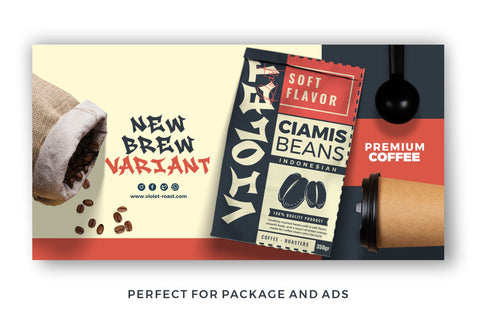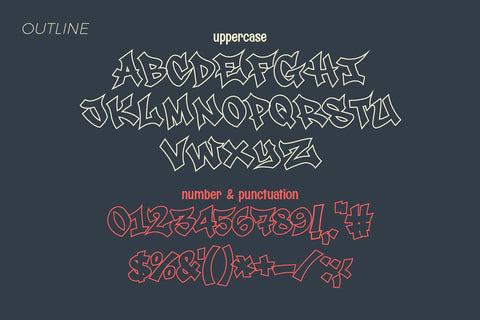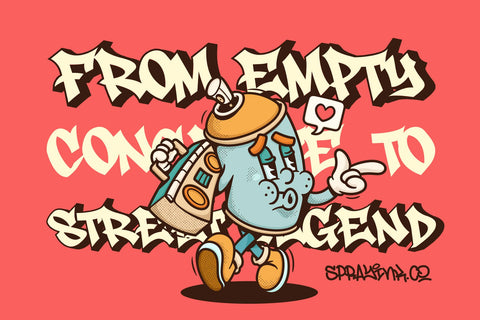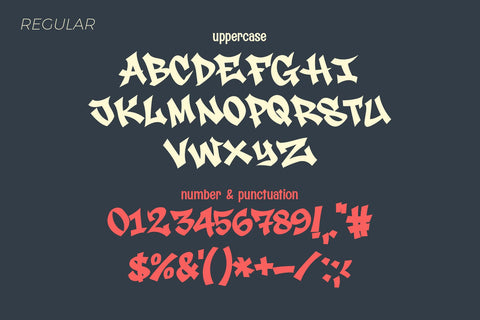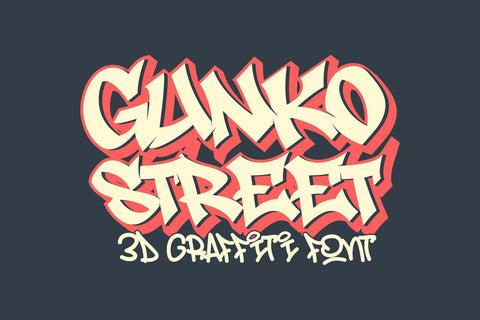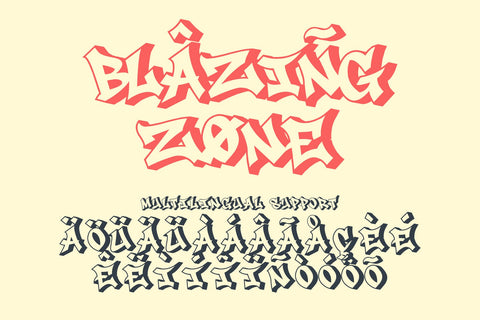
Gunko Street – Bold 3D Graffiti Font
Gunko Street is a bold 3D graffiti font that captures the raw energy of urban street culture. With sharp edges, dynamic strokes, and an eye-catching shadow effect, this typeface is perfect for streetwear logos, hip-hop event posters, merchandise design, and bold headline graphics. The layered 3D look adds depth and movement, giving your text a striking, street-smart personality.
Whether you’re creating apparel prints, music cover art, or impactful marketing visuals, Gunko Street delivers an authentic graffiti vibe with a modern twist. Its strong character design ensures your message stands out while keeping a high level of readability across both print and digital formats.